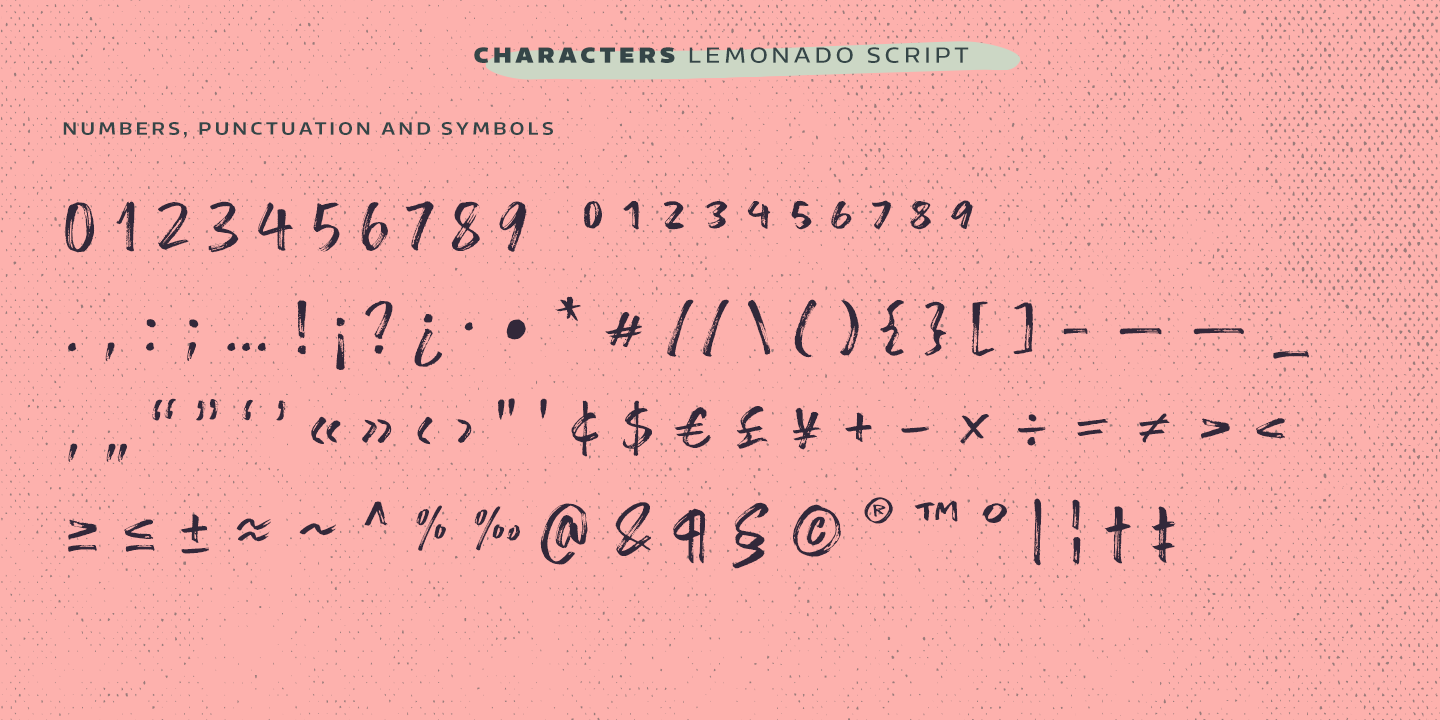
Lemonado Font is perfect for fresh beverage branding, citrus product packaging, summer festival promotions, lemonade stand signage, tropical resort marketing, refreshing drink labels, sunny outdoor events, and vibrant food service designs. This zesty typeface excels in applications requiring fresh energy and citrusy appeal that captures the essence of refreshing experiences and sunny disposition through vibrant visual character.
What makes Lemonado Font exciting is its irresistibly fresh personality that perfectly captures the zesty essence of citrus fruits and refreshing summer experiences through energetically crafted letterforms. The font features bright character construction with vibrant curves and cheerful presence that instantly evokes feelings of freshness, energy, and sunny satisfaction perfect for brands celebrating refreshing products and uplifting lifestyle experiences.
The Lemonado Font family includes regular and zesty variations with citrus-inspired styling elements, offering designers comprehensive tools for creating refreshing compositions. The family provides consistent fresh aesthetic with varying energy levels for versatile beverage branding and sunny product marketing requiring genuine citrus appeal and refreshing character presence.
The energetically crafted letterforms of Lemonado Font ensure excellent visibility while maximizing fresh charm and citrusy appeal, making it ideal for beverage packaging, outdoor event signage, and refreshing marketing materials. This vibrant typeface combines citrus authenticity with modern technical standards for outstanding performance in contemporary design projects requiring genuine fresh character and sunny visual energy appeal.